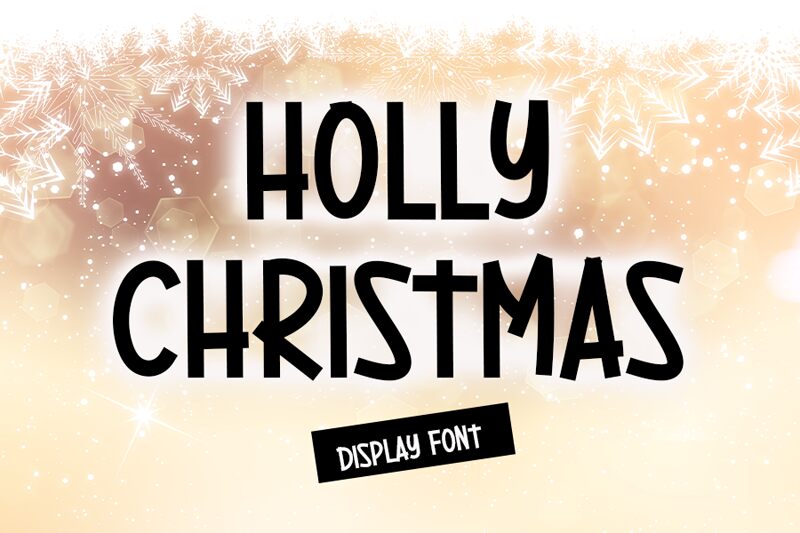
Holly Christmas
Holly Christmas font by Creatype Designer is a free cartoon display typeface with tall, hand-drawn letters that feel like they were brushed onto wrapping paper. The strokes are bold and slightly uneven, giving every word a playful wobble that still stays easy to read. Its narrow shapes stack neatly in tight spaces, so you can shout your holiday message without crowding the design.
Using Holly Christmas, your titles instantly get that cozy, handmade holiday energy—think cocoa, craft paper, and twinkling lights. This free font shines on greeting cards, kids’ activity sheets, party invitations, Advent calendars, social media posts, and festive packaging or gift tags. For a simple pairing, use Holly Christmas for headings and a clean rounded sans serif for smaller supporting text.